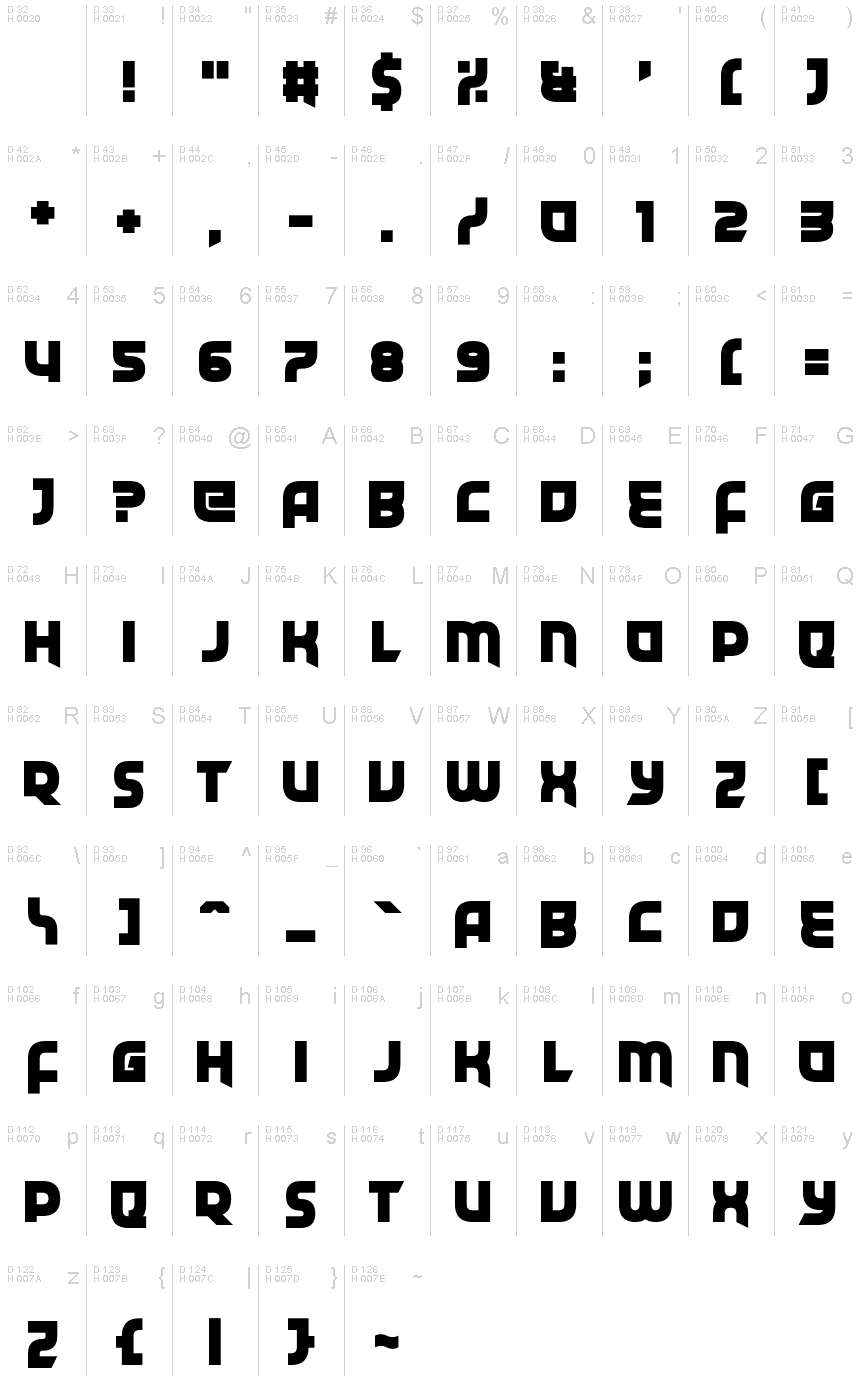
Fatal Distraction
Fatal Distraction, a bold and semi-expanded display font by Chequered Ink, is the perfect choice for projects seeking a captivating and futuristic design. With its techno style, this font adds a touch of edginess to any creative endeavor.
Ideal for posters, album covers, and advertising campaigns that aim to grab attention, Fatal Distraction demands to be noticed. Whether used in sci-fi movie titles or video game logos, this font's unique blend of boldness and semi-expanded width guarantees an unforgettable visual impact.
Let your imagination run wild with Fatal Distraction!